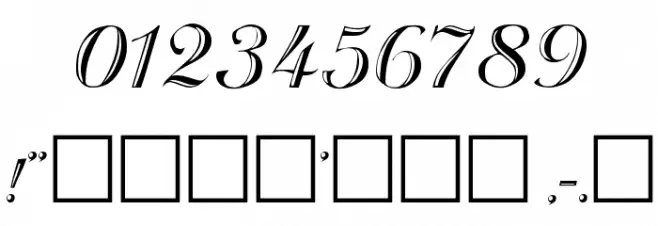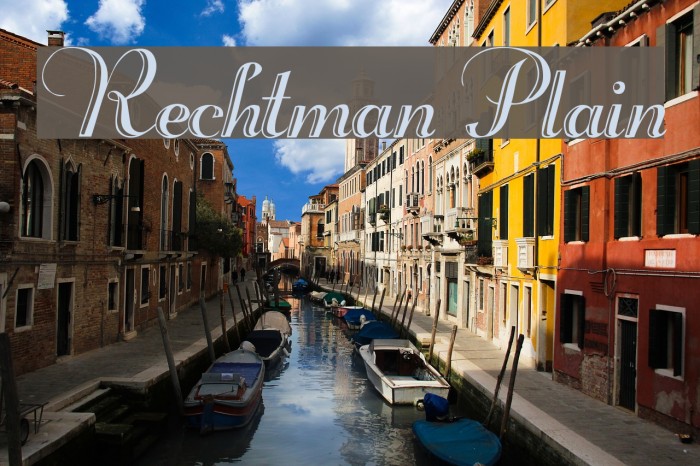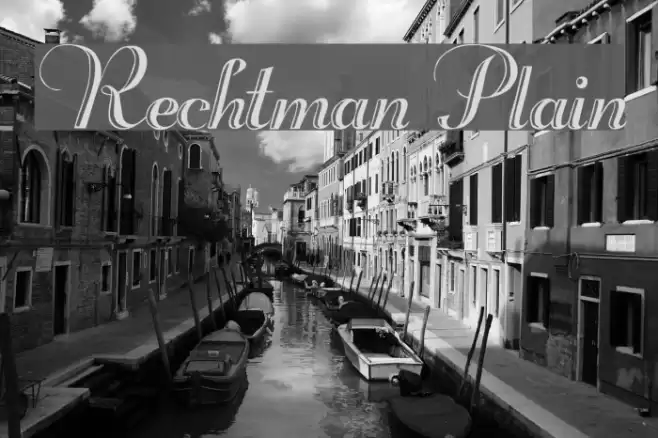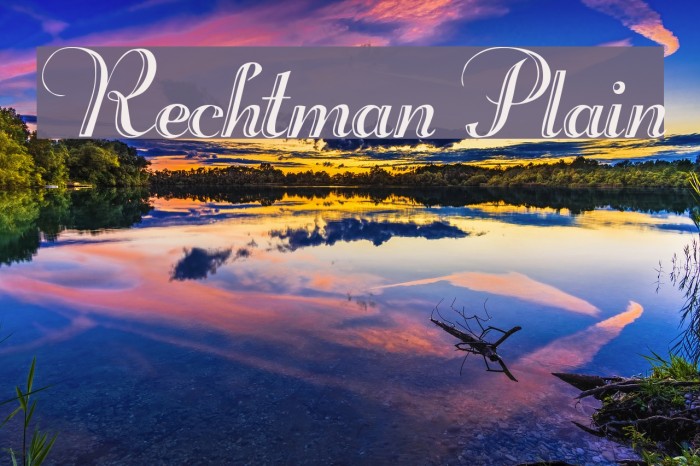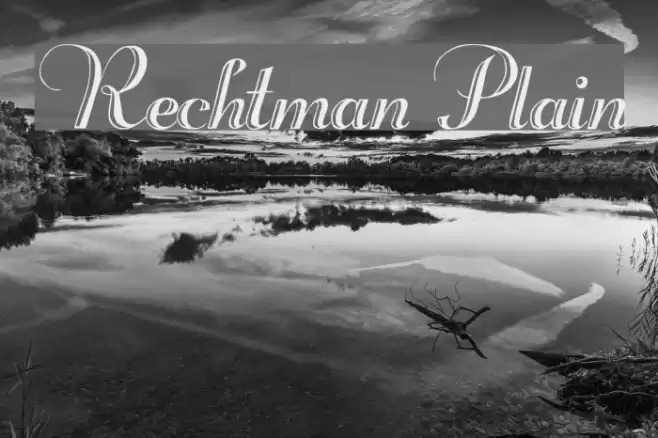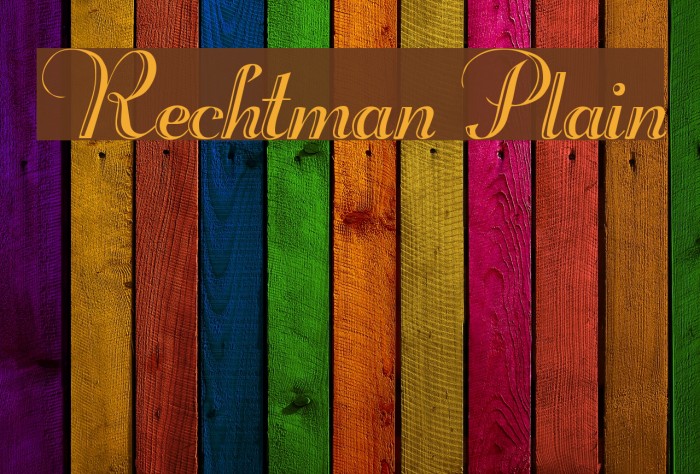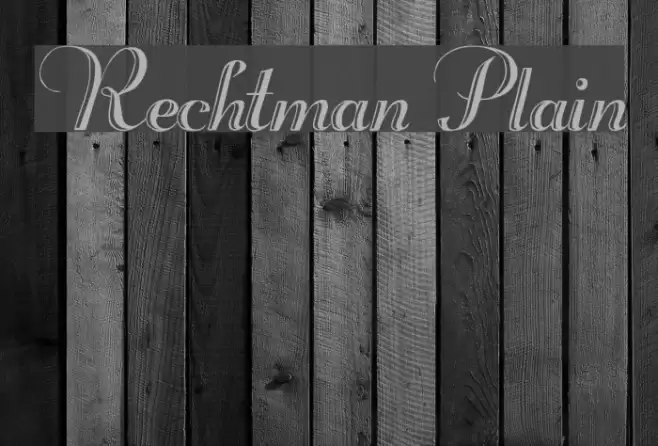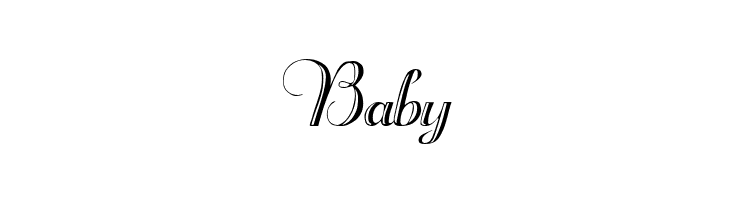
Rechtman Plain Font
Rechtman Plain Description
This elegant script font features a sophisticated and flowing design, characterized by its intricate curves and flourishes. The uppercase letters are particularly ornate, with sweeping lines that extend beyond the baseline and cap height, adding a touch of grandeur. The lowercase letters maintain a consistent style, with smooth connections and a slight slant that enhances readability. The numerals are designed with similar elegance, ensuring they complement the overall aesthetic. This font exudes a sense of luxury and refinement, making it ideal for formal invitations, branding, and decorative purposes.
| Use Case | Invitations, Branding, Decorative |
| Proposed Projects | Ideal for wedding invitations, luxury branding, elegant signage, and decorative print materials. |